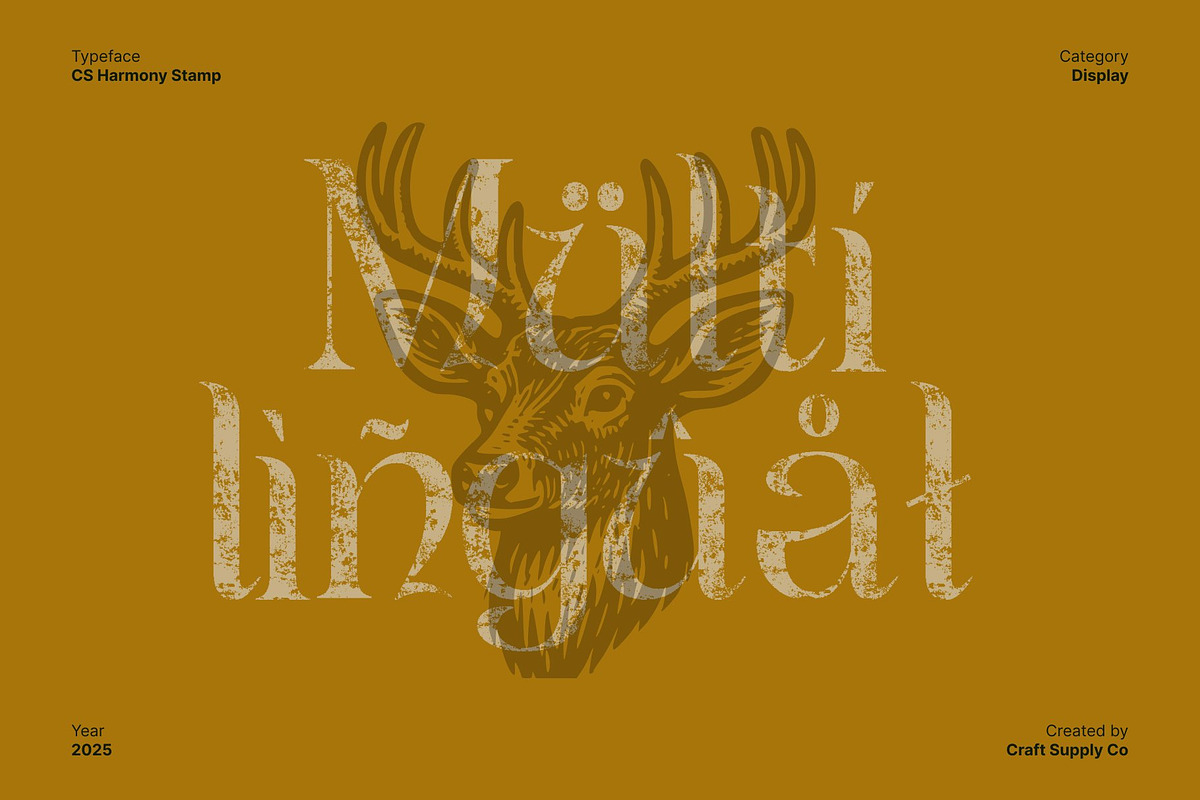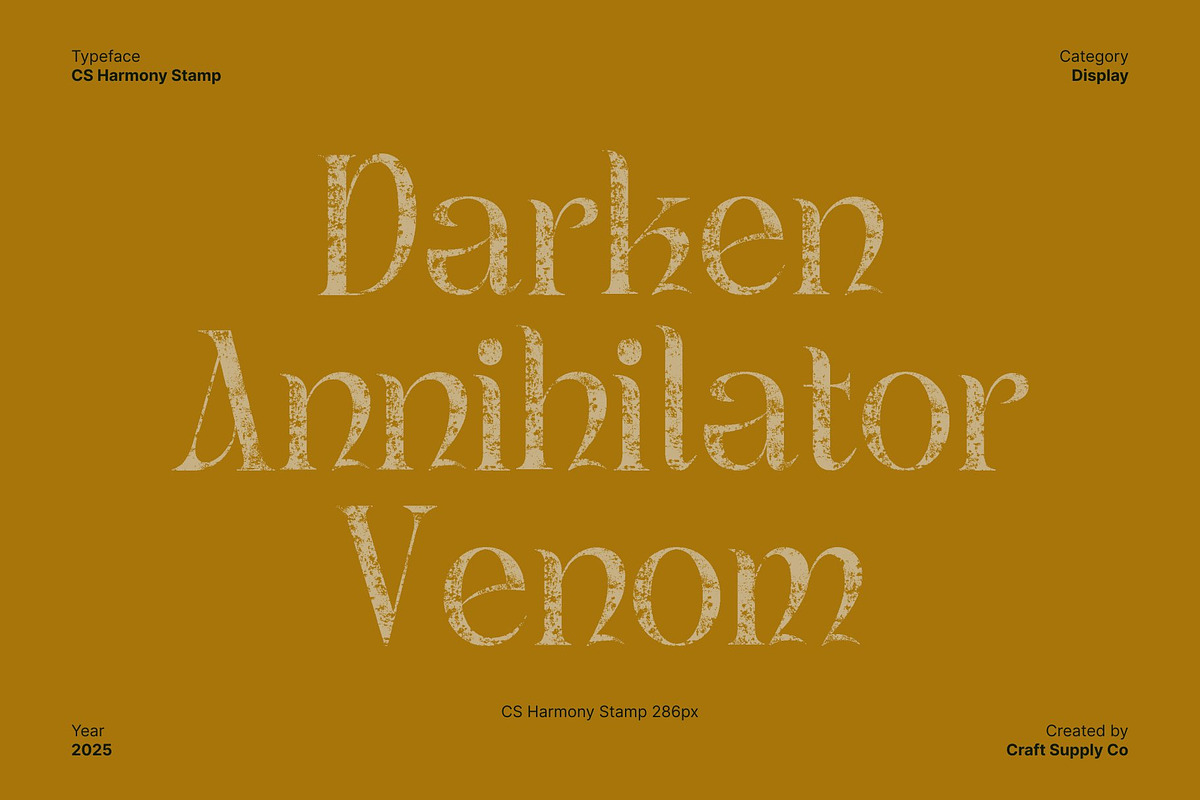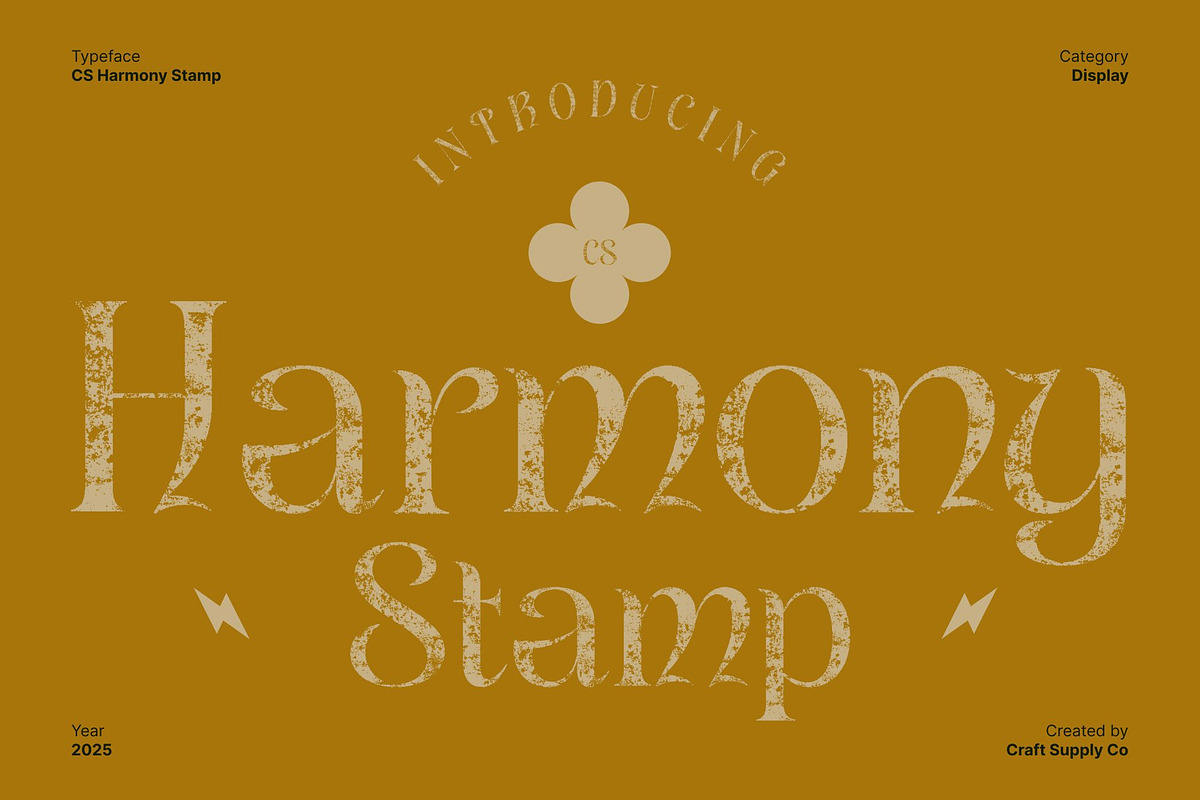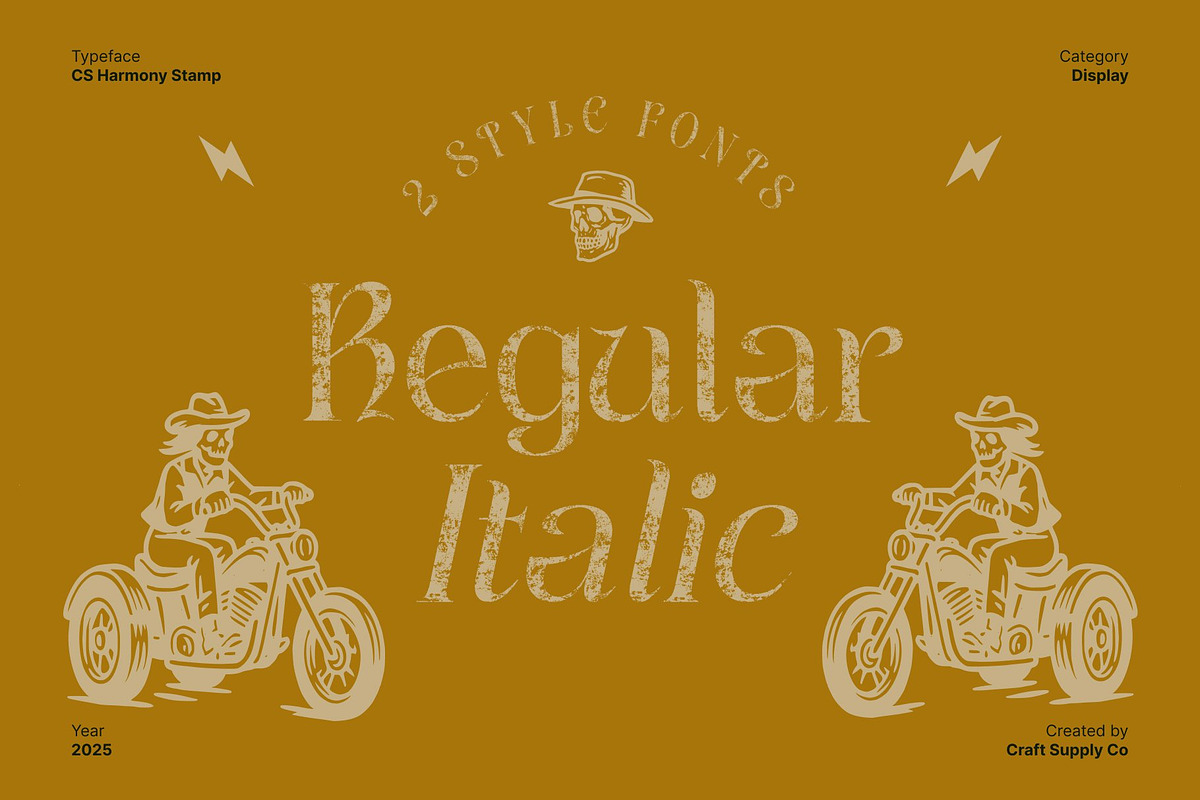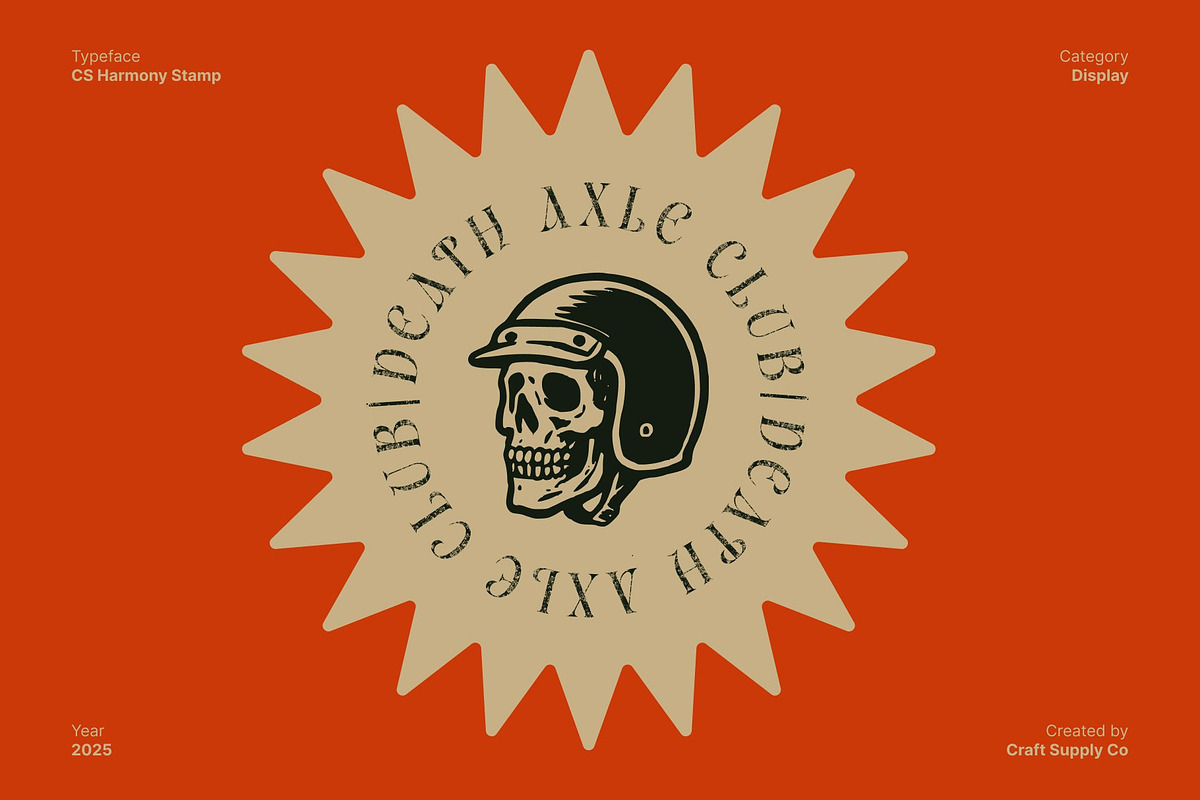
CS Harmony Stamp
Historic Elegance with Handcrafted Charm
Uncial Font with Timeless Beauty This is an uncial font inspired by elegant serif traditions. Its flowing, historic letterforms capture the grace and sophistication of classical typography, bringing a sense of heritage and refinement to any design.
Stamped Texture for Artistic Character The subtle stamp finish adds a handcrafted touch, giving the font depth and personality. This textured effect enhances the classic forms, creating a balance between tradition and contemporary artistic flair.
Flowing Forms for Elegant Expression This font’s carefully designed curves and strokes evoke a sense of harmony and sophistication. Each letter feels purposeful and graceful, delivering readability while maintaining a unique, historic aesthetic.
Perfect for Luxury, Cultural, and Editorial Projects Ideal for luxury branding, cultural initiatives, or editorial layouts, this font blends classic elegance with distinctive style. Its combination of uncial tradition and stamped texture ensures your designs convey refinement, authenticity, and timeless beauty.